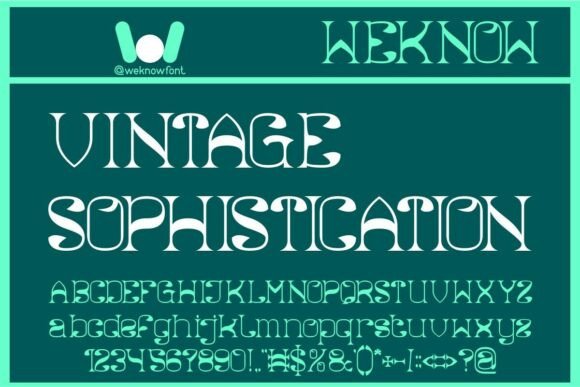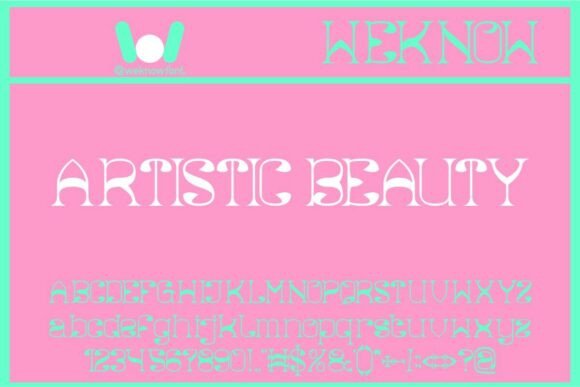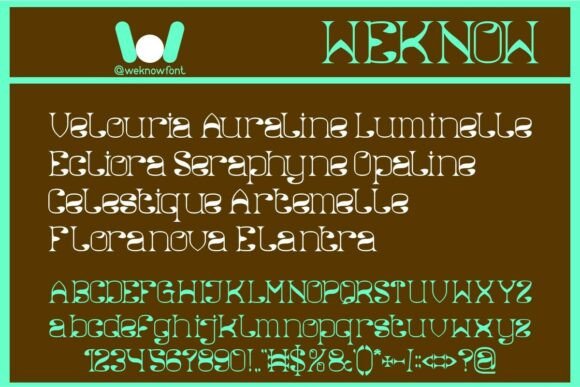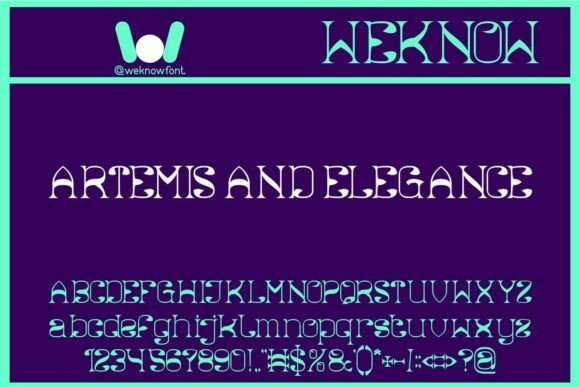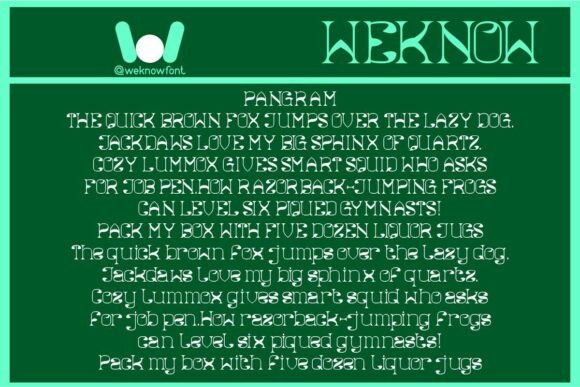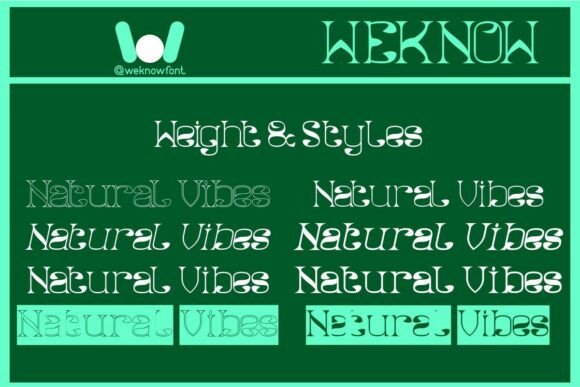
Introduction to Natural Vibes Font
As a designer, have you ever found yourself scrolling through a vast library of fonts, searching for the perfect one to elevate your creative project? It’s that moment of discovery when you stumble upon a font that speaks to you, and your design vision comes to life. For many, that font is the Natural Vibes Font – a masterpiece that effortlessly blends delicate floral motifs with the refreshing energy of nature.
The Natural Vibes Font is a game-changer for designers, offering a unique combination of elegance and charm. Its retro art deco influences and opulent design elements make it an ideal choice for stylish display typefaces. Whether you’re working on a branding project or creating a captivating visual identity, this high-quality font is sure to leave a lasting impression. With its versatility and wide range of applications, the Natural Vibes Font is a valuable design resource that can be used in everything from magazine spreads to web designs.
What sets the Natural Vibes Font apart is its ability to seamlessly integrate into various design projects, from apparel graphics to music albums and film posters. Its transparent background and free download options make it an attractive choice for designers who want to add a touch of sophistication to their work. Whether you’re a seasoned pro or just starting out, the Natural Vibes Font is an excellent addition to your design toolkit.
Key Features of Natural Vibes Font
- High-quality, unique design perfect for creative projects and designs
- Unique characteristics include a natural, hand-drawn feel and subtle texture
- Perfect for use in branding, logos, packaging, and other design elements
Honest Review: Natural Vibes Font
I recently had the chance to use the Natural Vibes Font for a creative project and I must say it was a great experience. This high-quality font is perfect for any design project that needs a laid-back and natural feel.
- ✨ The font has a very natural and earthy feel to it, which is perfect for any project that needs a relaxed atmosphere.
- ⚠️ The font only comes in a few weights, which may limit its versatility.
- ⚠️ The font may not be suitable for projects that require a more formal or professional look.
Overall, I was very impressed with the Natural Vibes Font. It’s a great resource for designers who are looking for a high-quality, free font that can add a natural and relaxed feel to their projects. I would definitely recommend it for any creative project that needs a laid-back vibe.
Tips for Getting the Most Out of Natural Vibes Font
To get the most out of the Natural Vibes Font, use it in conjunction with a transparent background to create a clean and minimalist design. Experiment with different font sizes and styles to create visual interest. Additionally, consider using the font in combination with other design elements, such as graphics and images, to add depth and complexity to your design.
The Natural Vibes Font is well-suited for a variety of design projects, including blog posts, social media graphics, and business cards. Its clean and modern design makes it an excellent choice for creative projects where a high-quality design resource is needed.